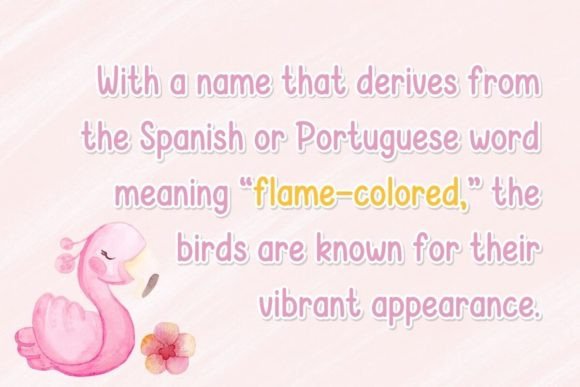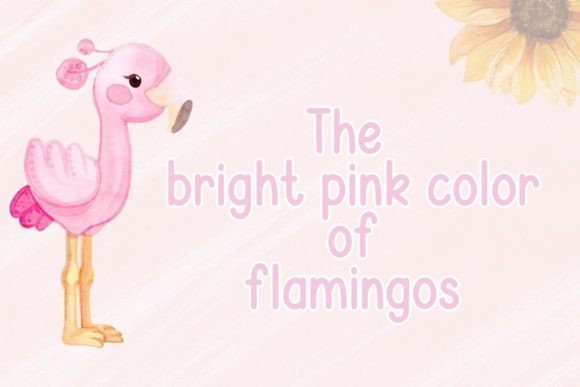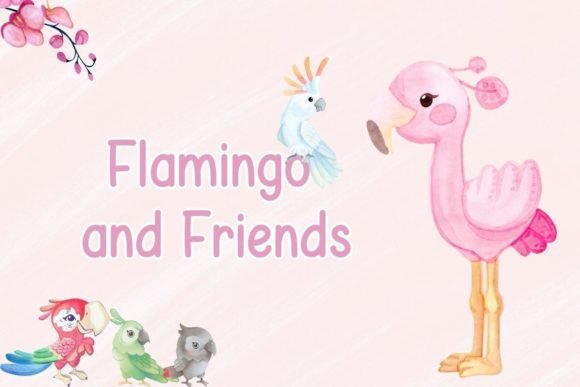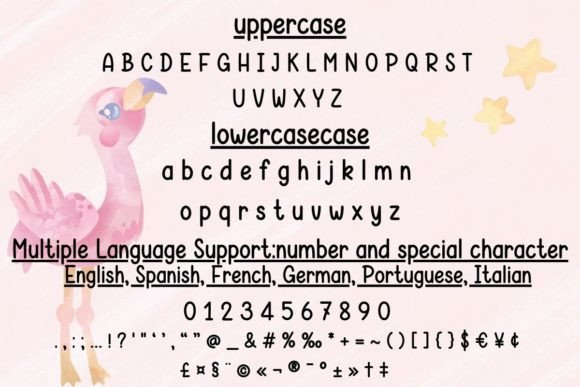
Introduction to Beautiful Flamingo Font
Introducing “Beautiful Flamingo” – where Display Fonts and Handwritten Fonts come together in perfect harmony.
🌸🖋️ This font is your new creative BFF, bringing a touch of elegance and a dash of playfulness to all your projects With the grace of Display Fonts and the personal charm of Handwritten Fonts, Beautiful Flamingo dances effortlessly across the page, making every word a delightful work of art.
Key Features of Beautiful Flamingo Font
Why Choose Beautiful Flamingo Font?
Beautiful Flamingo Font offers exceptional quality and versatility, making it a valuable addition to your design toolkit. Whether you’re creating for personal projects or commercial use, Beautiful Flamingo Font delivers professional results.